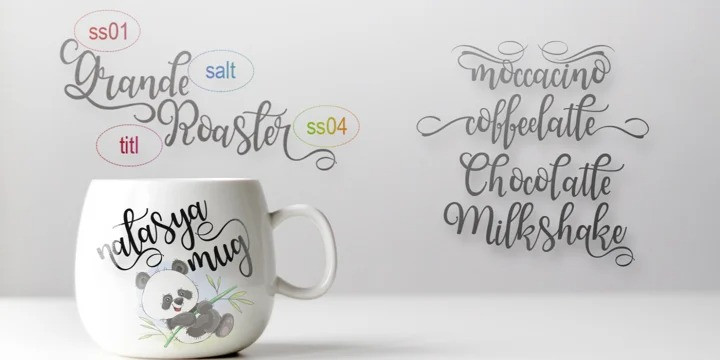
Best Soullmate Font
Best Soulmate Script Font is a stylish and laid-back script font. This font is PUA encoded which means you can access all glyphs and swashes with ease!